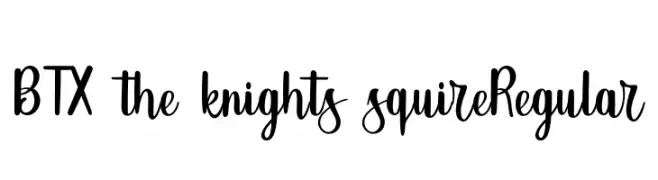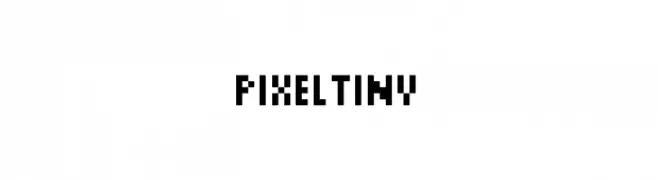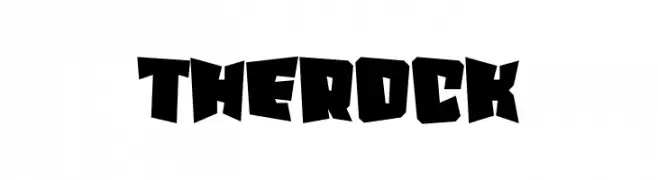
A bold, angular, and geometric font with a graffiti-inspired style.
A bold, angular font with a rugged, dynamic design.
A dynamic and expressive handwritten font with fluid, cursive letterforms.
A geometric, fixed-width font with a mosaic-like pattern, offering a modern and artistic style.
A playful and dynamic script font with a handwritten feel.
A classic, elegant script font with flowing, cursive letterforms.
A playful, rounded font with smooth curves and a friendly appearance.
A retro, pixelated font with a blocky, geometric style.
A fluid and elegant handwritten script with a playful slant.
A bold, high-contrast script font with elegant, flowing letterforms.